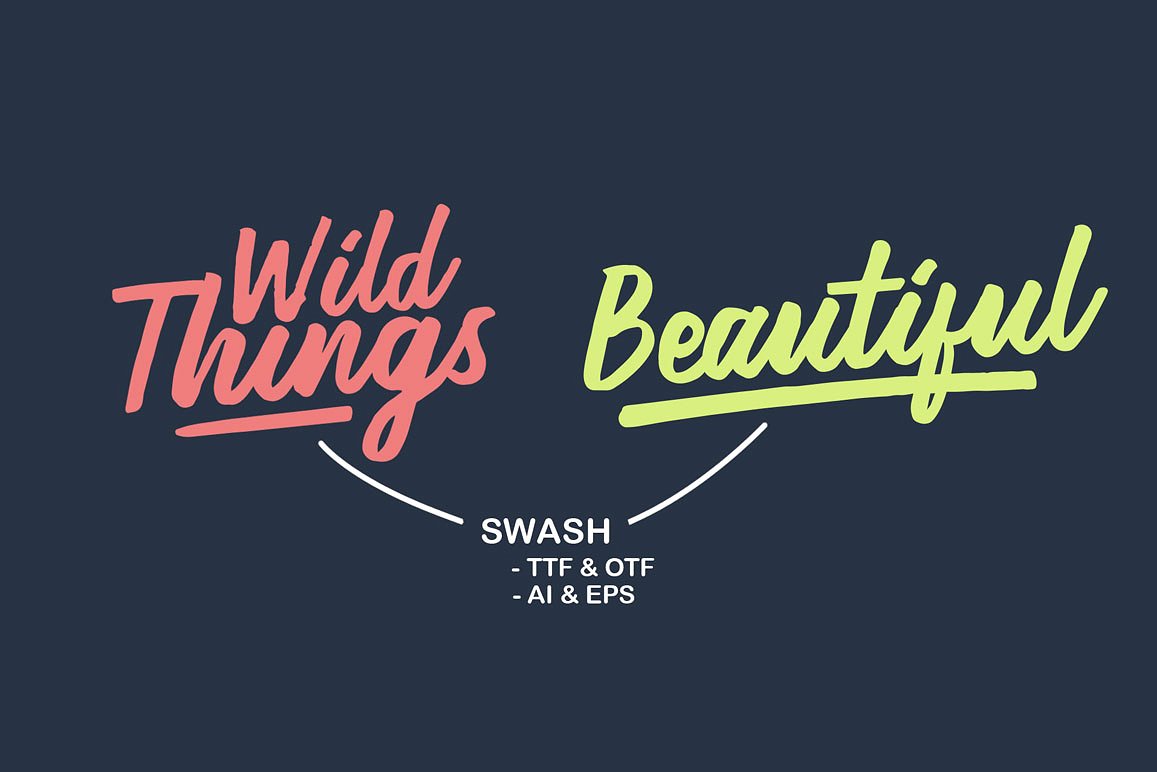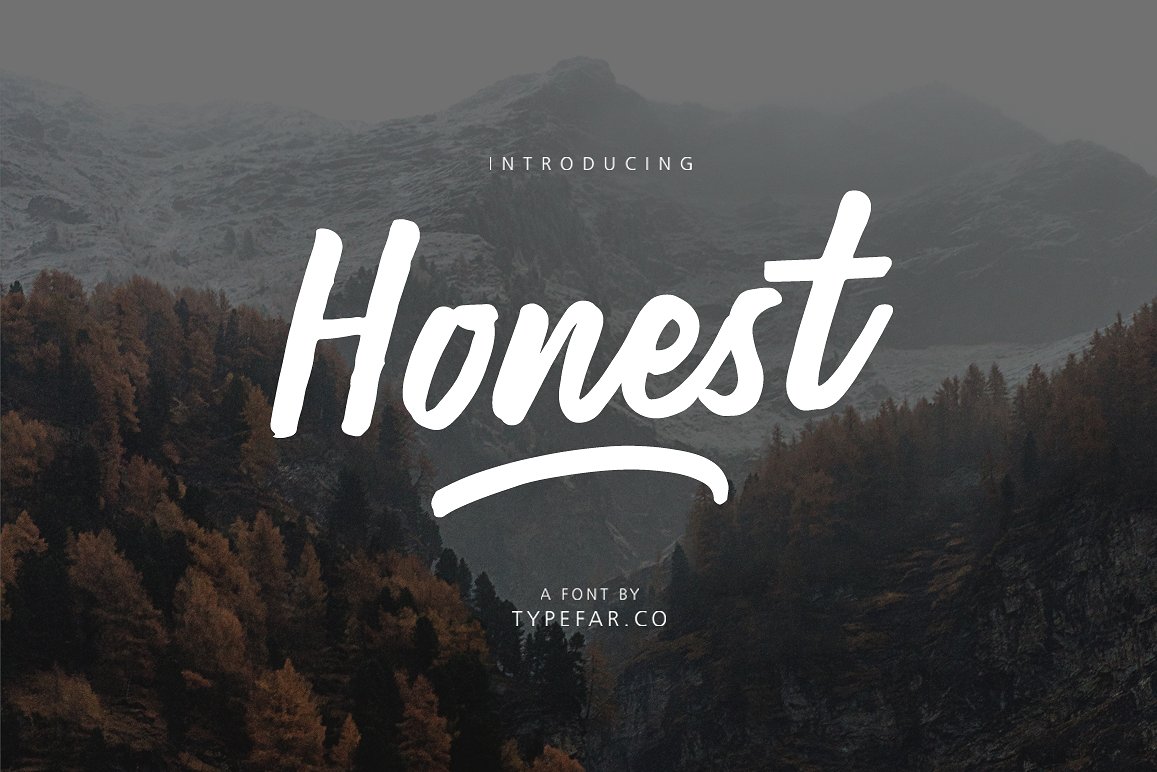
Honest Script
Honest Script Font
Holla… Introducing Honest font . this font looks natural like a handmade. This font is best used for your design project that has the concept of fun, brave and sporty. Can also be applied to the design of a logotype, header website, make some lettering a quote, t-shirt design etc.